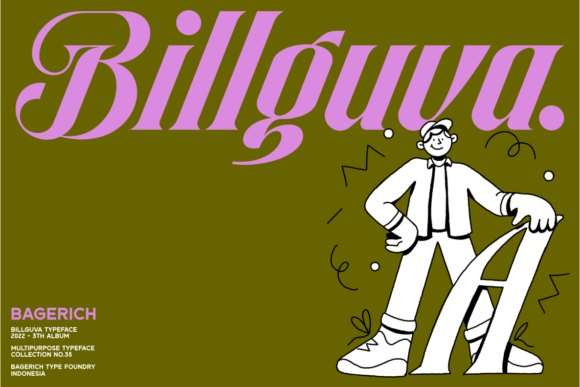
Step into the realm of captivating designs with Billguva, a modern and vivacious display font, meticulously crafted by the creative minds at zealab fonts division. This font is more than just a collection of letters; it's an artistic playground where your imagination can run wild.
With its contemporary and fresh aesthetics, Billguva effortlessly elevates your designs, adding a touch of flair and personality. It's the perfect font for businesses, creatives, and individuals looking to make a statement.
Billguva's versatility is truly remarkable. It seamlessly adapts to various applications, from eye-catching logos and branding elements to captivating social media posts and website headers. Its bold and playful nature lends itself perfectly to creating designs that pop and leave a lasting impression.
Unleash your creativity with Billguva and transform your designs into captivating masterpieces. Its playful and bubbly characters add a touch of whimsy, while its modern lines ensure a clean and sophisticated look. Whether you're designing marketing materials, creating social media graphics, or crafting personal projects, Billguva will add a touch of magic to your work.